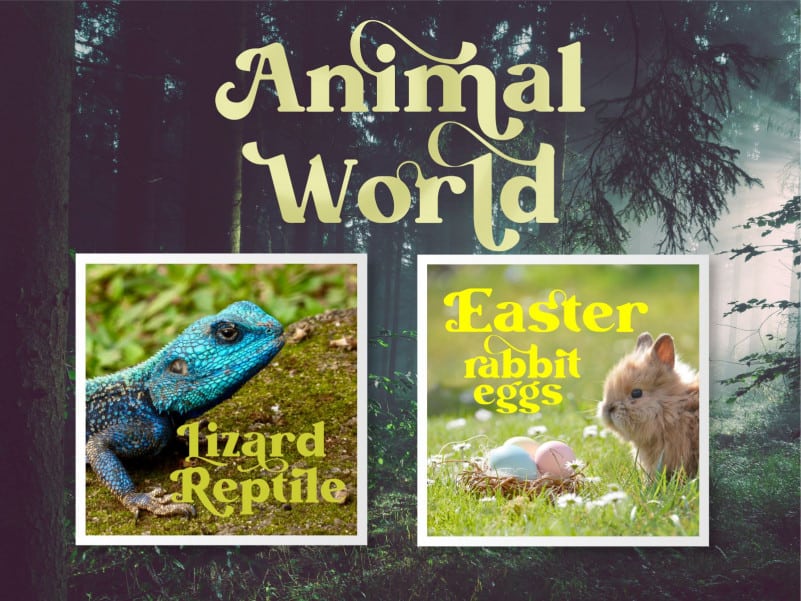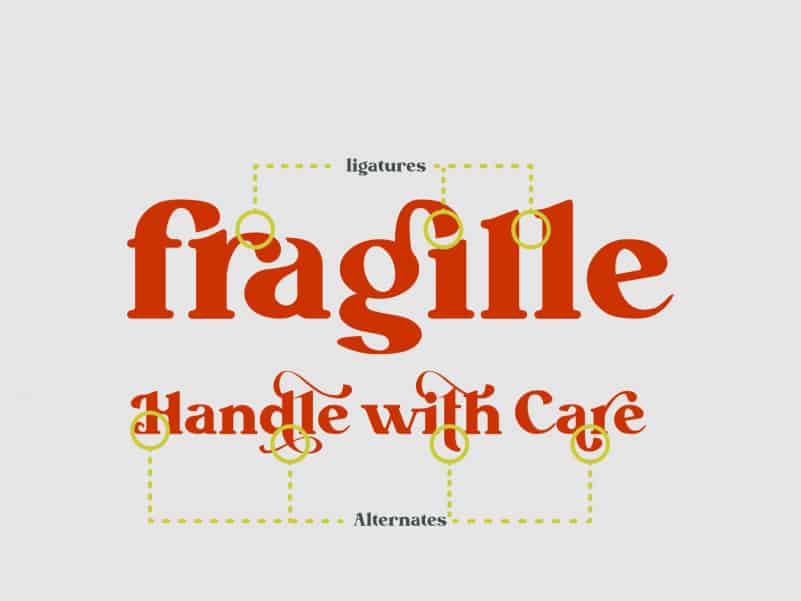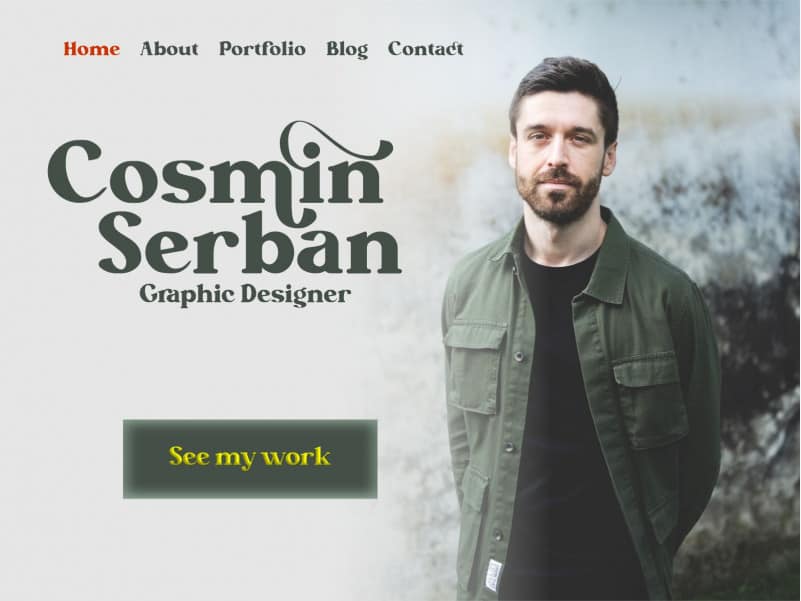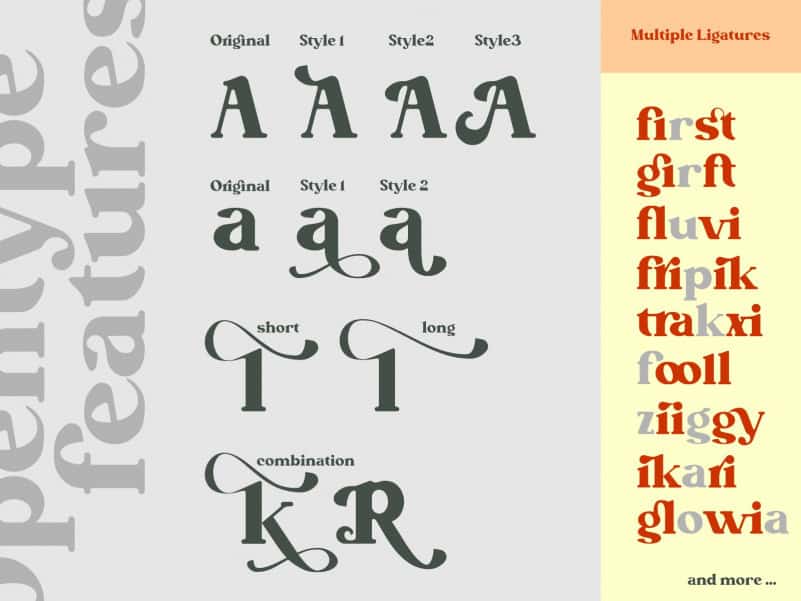
Betofin Serif Font
Betofin Serif Font  is a distinct serif font. It can easily be matched to an incredibly large set of projects, so add it to your creative ideas and notice how it makes them stand out!